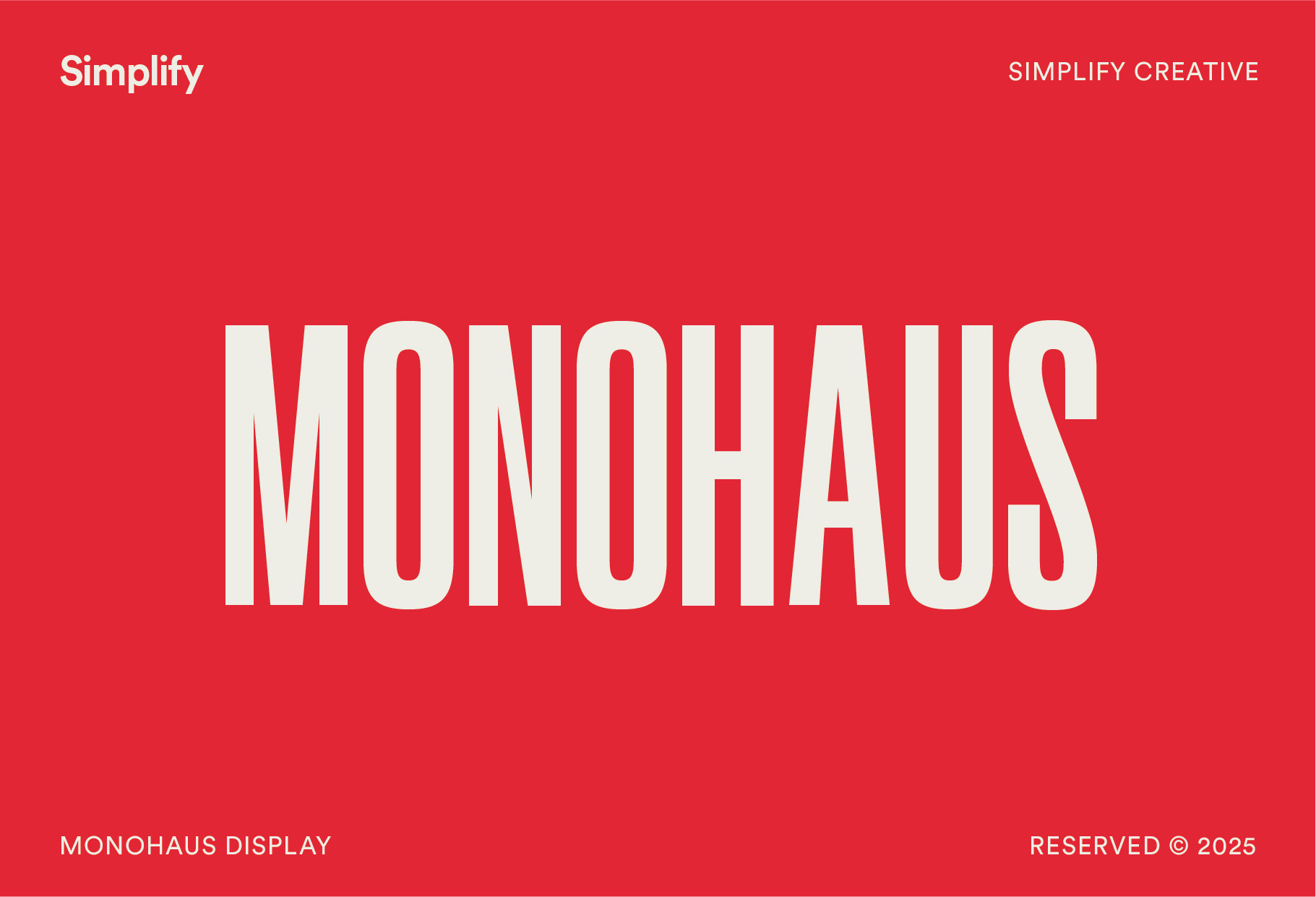
Monohaus - Tall Display Font
Where Modernism Meets Minimalism
Monohaus is a refined, all-uppercase sans serif display font that blends clean geometry with fashion-forward elegance. With ultra-tall letterforms, clean-cut curves, and minimalist rhythm, it brings a timeless modernist edge to contemporary editorial design.
Crafted for the bold and the stylish, Monohaus is perfect for high fashion branding, magazine spreads, visual identities, and elevated packaging.
All Uppercase Characters
Numbers & Basic Punctuation
Built for fashion campaigns, editorial layouts, posters, and logos
Why You'll Love It
Fashion meets function: minimal, modular, and unmistakable
A modern take on editorial typography
Stretches vertical space with elegance and restraint
Works across luxury, lifestyle, and creative industries